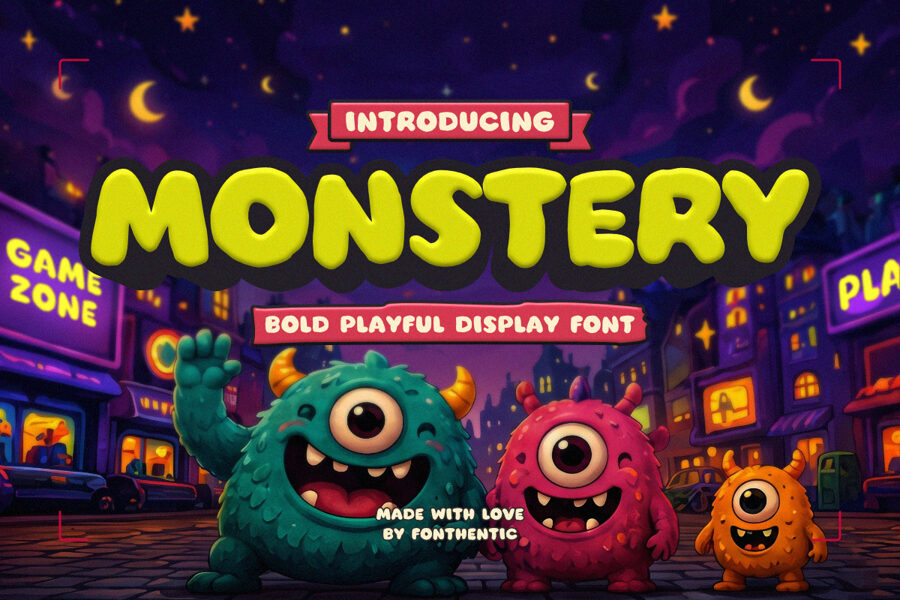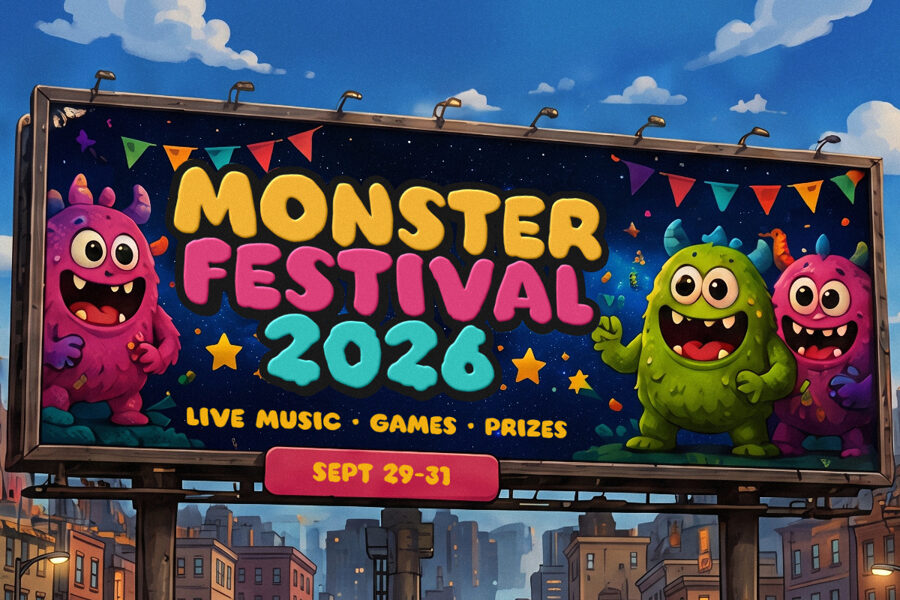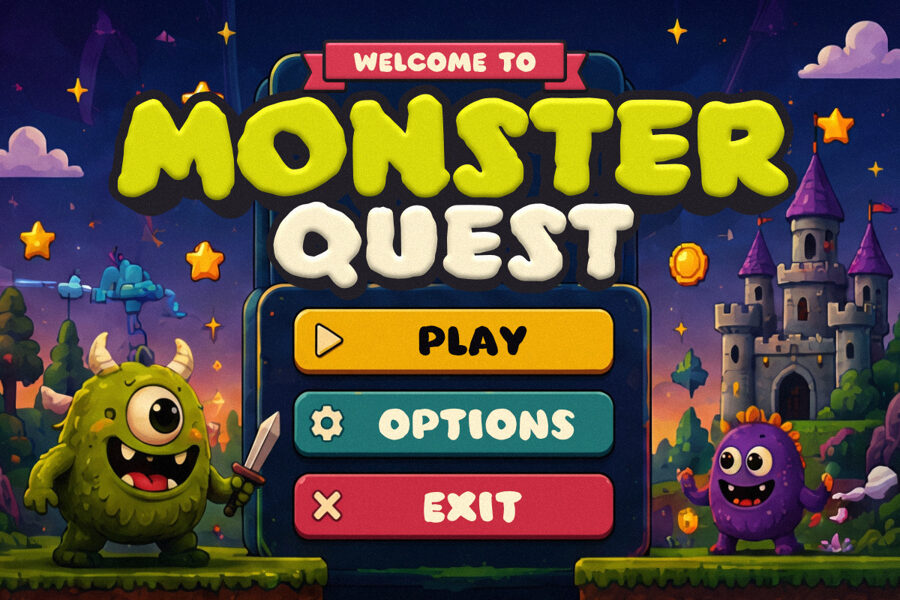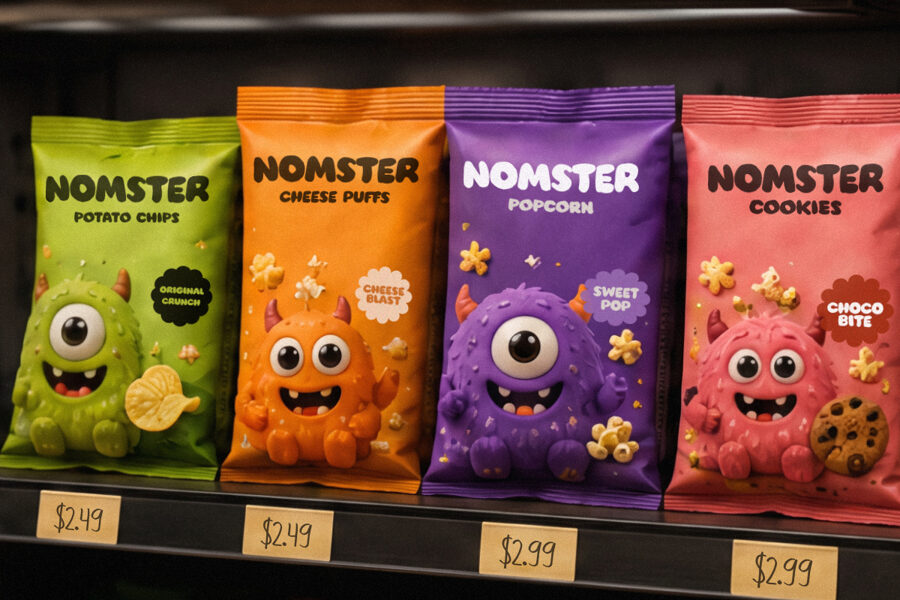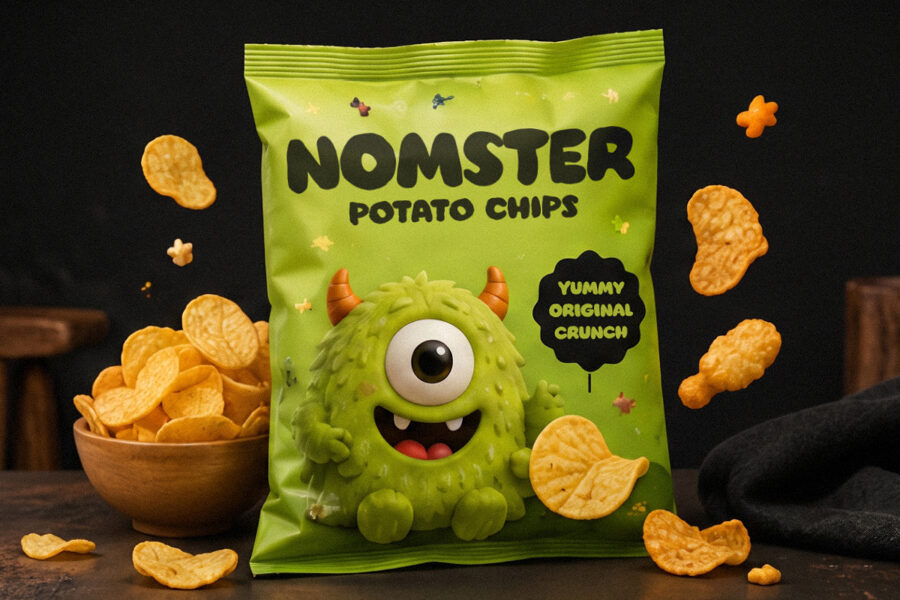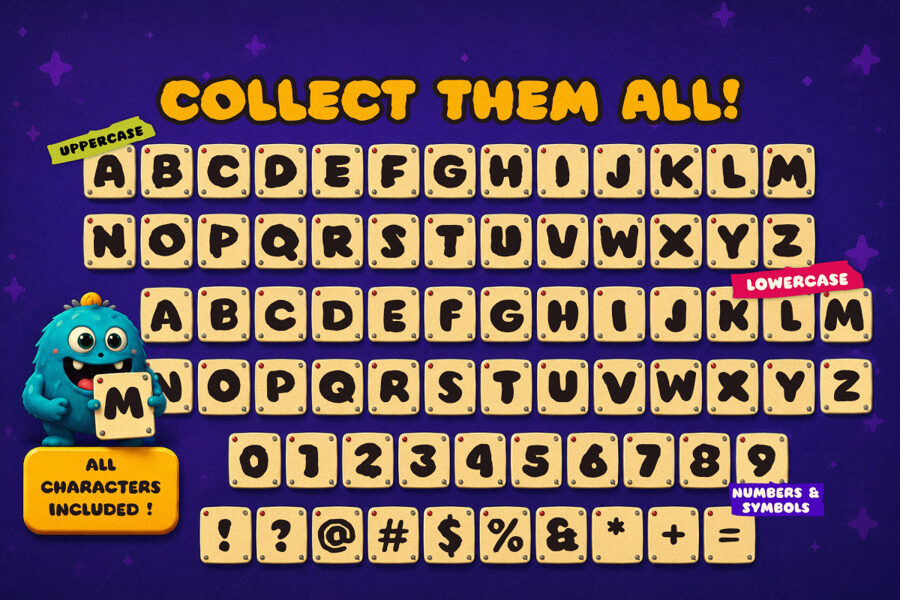
Monstery is a monster display font built with oversized rounded strokes, inflated proportions, and soft organic contours that create the feeling of squishy cartoon creatures brought into typographic form.
Each letter features thick weight distribution, wide counters, and intentionally uneven curves that give the alphabet a hand-crafted monster-toy aesthetic rather than a geometric cartoon style. The bold silhouettes maintain strong readability while the playful rhythm between characters creates energetic word shapes that feel friendly, collectible, and instantly recognizable.